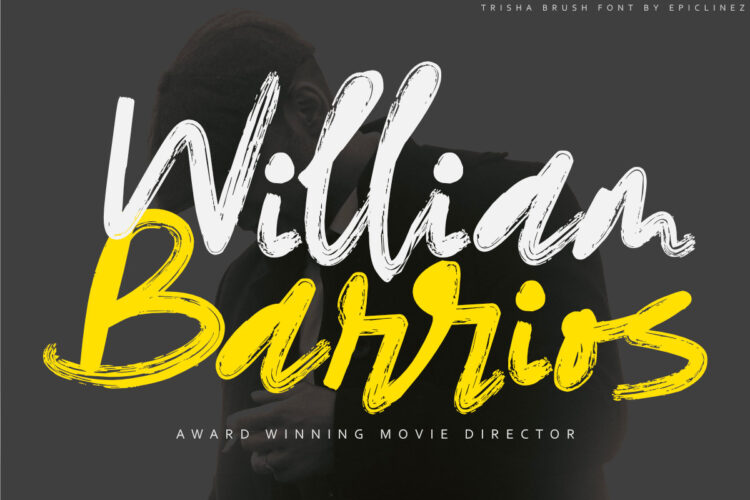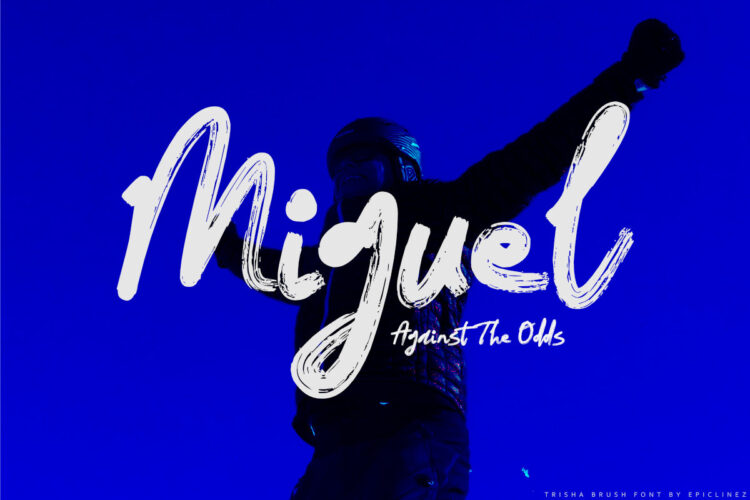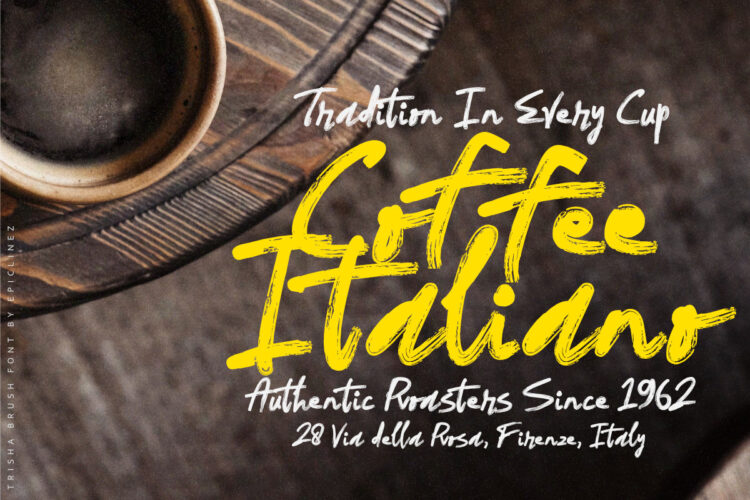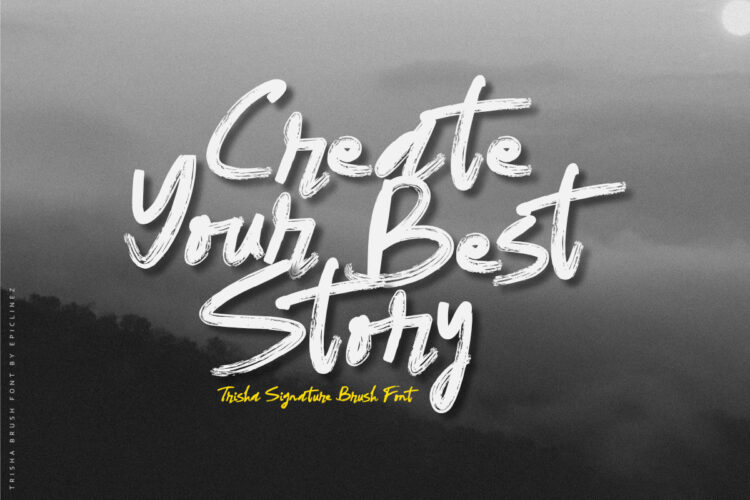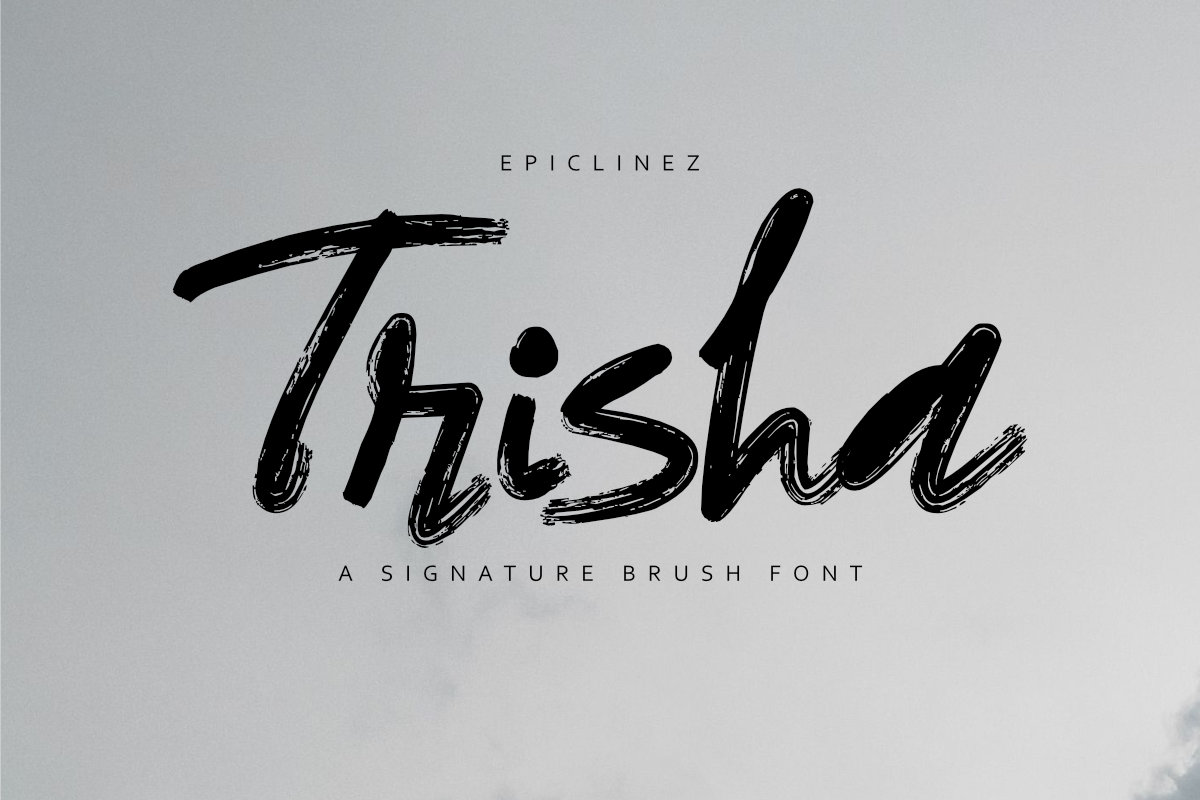
Trisha Brush Signature is a modern handwritten brush signature font that combines natural elegance with authentic brush strokes. Inspired by real handwriting, it features smooth, flowing letterforms and a handcrafted texture that adds warmth, personality, and sophistication to every design.
Perfect for luxury branding, logos, wedding invitations, beauty products, fashion labels, packaging, social media graphics, photography watermarks, business cards, and personal branding, Trisha delivers a stylish signature look that works beautifully across both print and digital projects.
Designed to be versatile and easy to use, this font helps create elegant, memorable designs with a natural handwritten feel.
Key Features:
- Uppercase & lowercase letters
- Numbers & punctuation
- Multilingual support
- Authentic brush signature style
- Smooth handwritten flow
- Perfect for branding, logos, weddings, packaging, and social media.